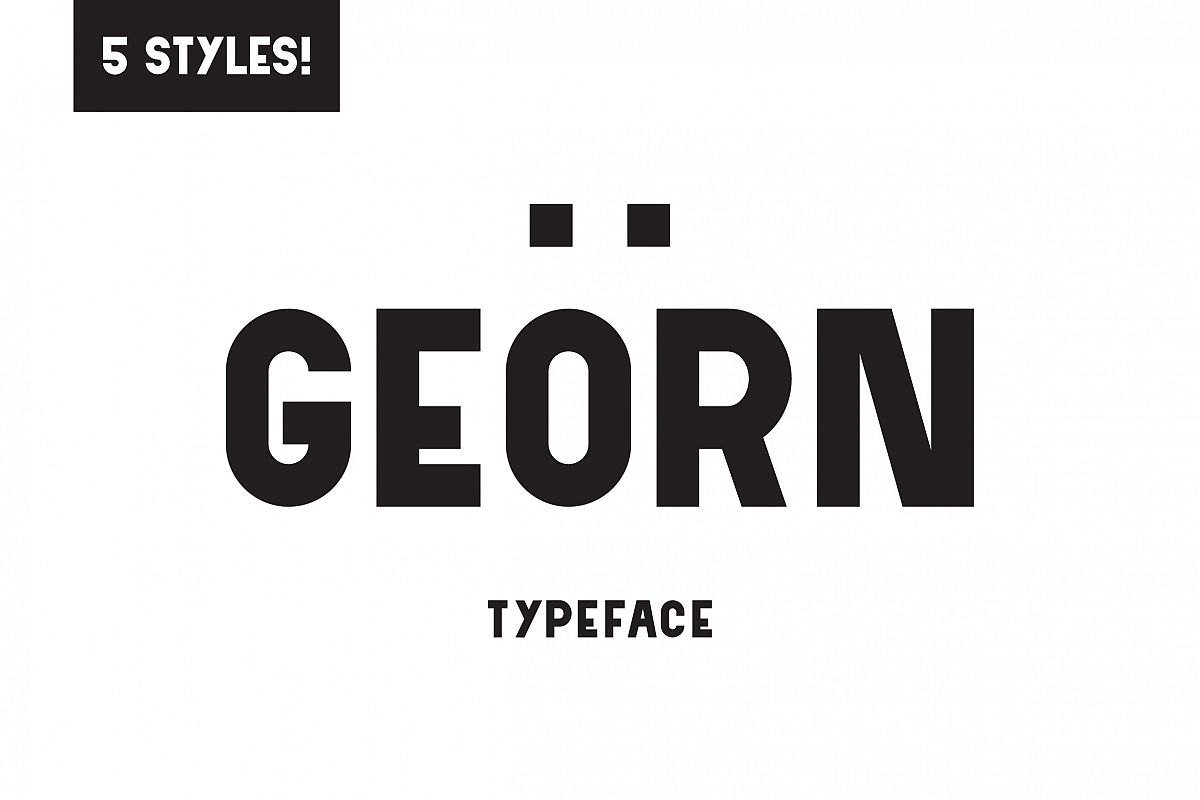
Georn Typeface
Georn-Rounded
Georn-Italic
Georn
Georn-Al
Georn-Outline
Georn is a bold and clear display typeface available in regular, rounded, alt, outline and italic. Enjoy!